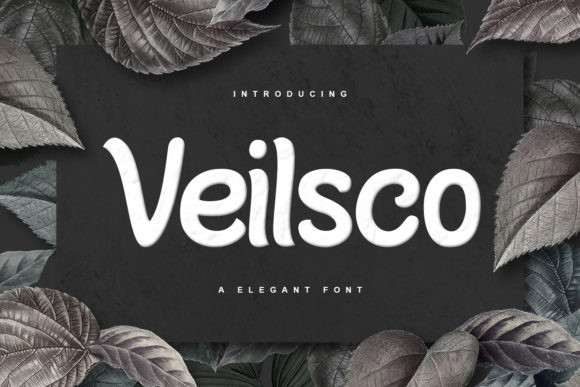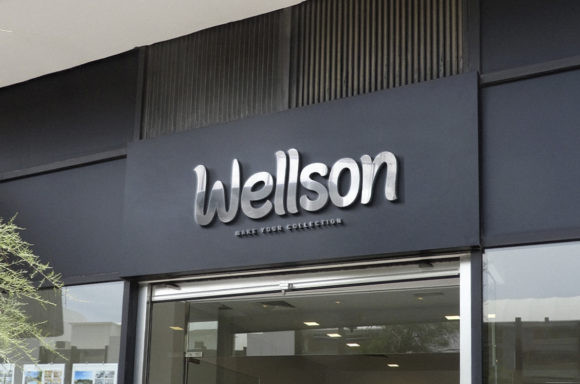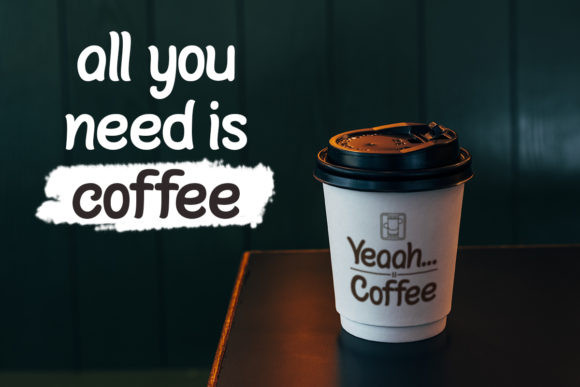
Veilsco Font
Veilsco is a modern and fresh display font. Its trendy style will make each of your designs stand out. This original look will appeal to a wide range of crafty ideas, from letterheads and titles, to stationery.